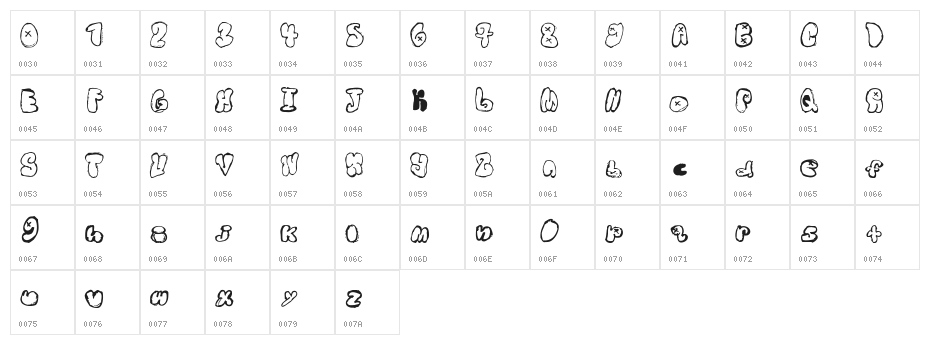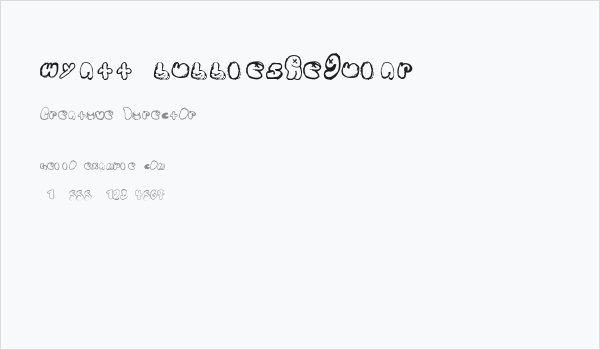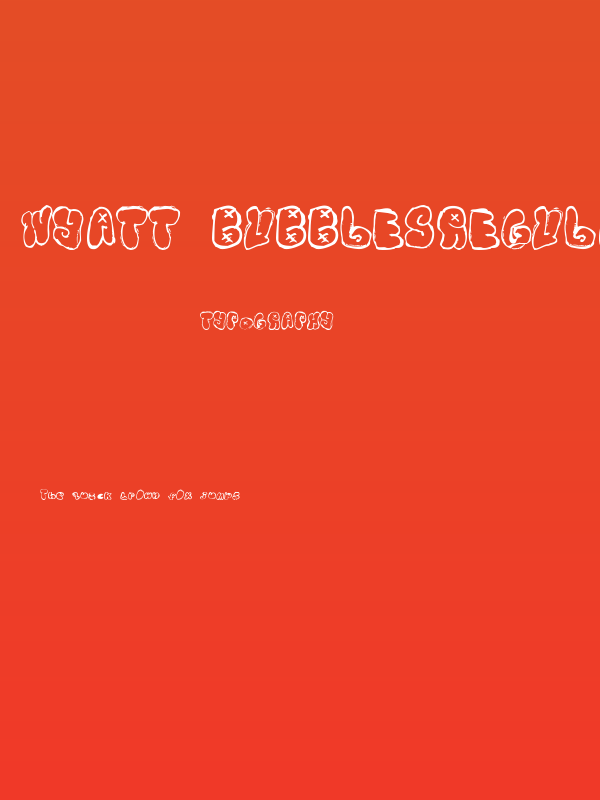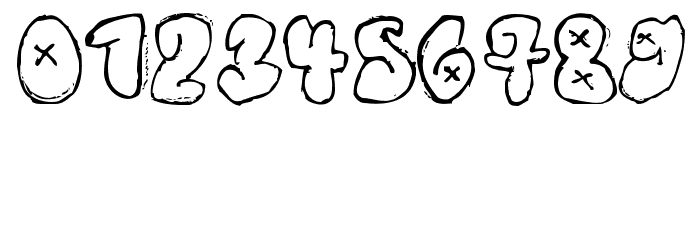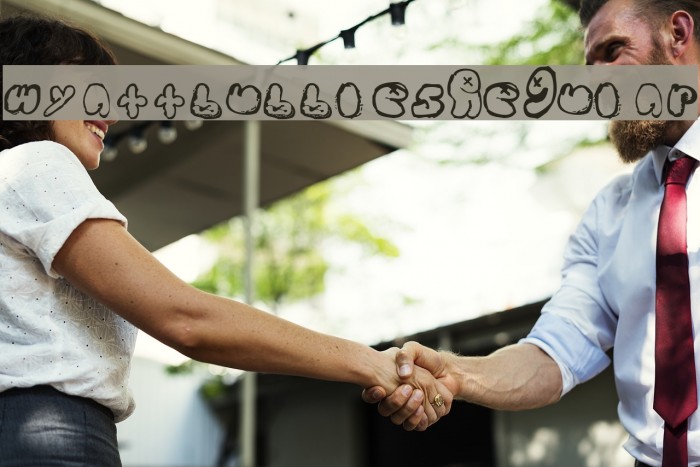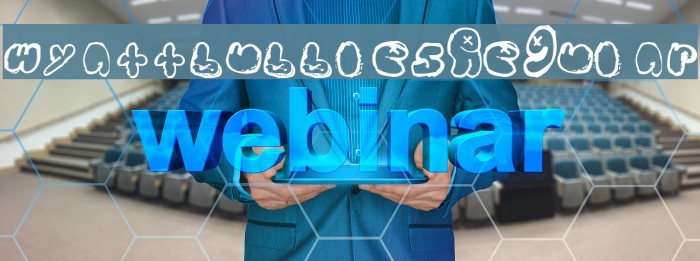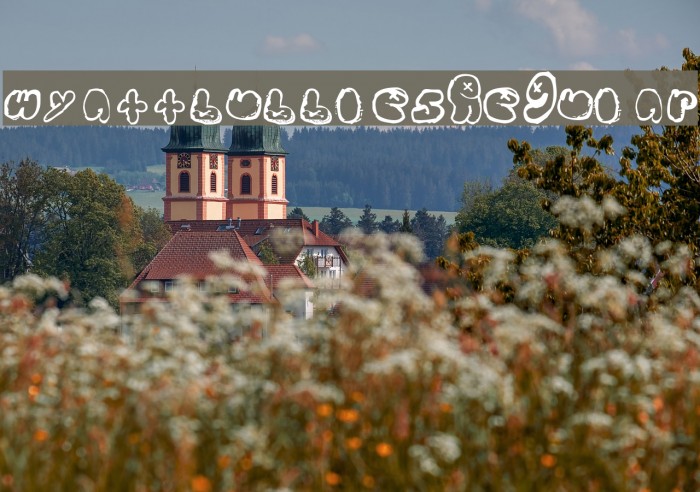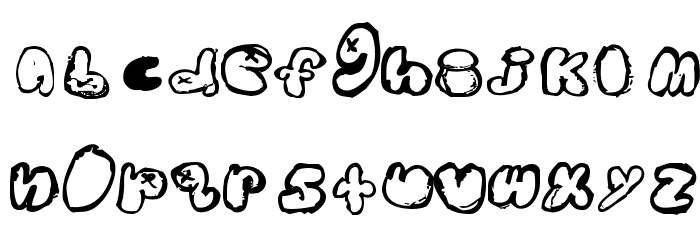
wyatt bubblesRegular Font
wyatt bubblesRegular Description
This playful and whimsical font features a bubbly, hand-drawn style with a unique, irregular outline that gives each character a lively and dynamic appearance. The letters are rounded and inflated, resembling balloons or bubbles, which adds a sense of fun and creativity. The font includes both uppercase and lowercase letters, numbers, and a selection of special characters. Its informal and casual design makes it perfect for projects that require a light-hearted and cheerful touch. The font's uneven strokes and varying thicknesses contribute to its distinctive and eye-catching look.